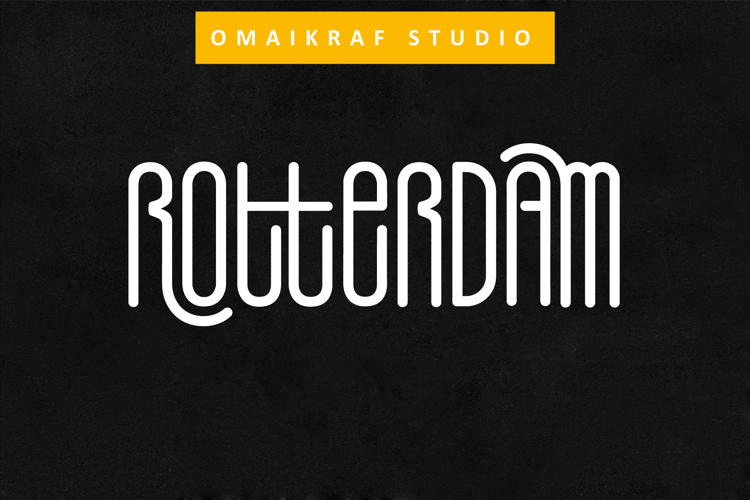
Rotterdam Font
About Rotterdam Font
Rotterdam is made to standout with its Capital Letters. Nevertheless, it is also equipped with lowercase and various alternate of ligatures to make various alternatives. Bring your creativity to the next level with Rotterdam.